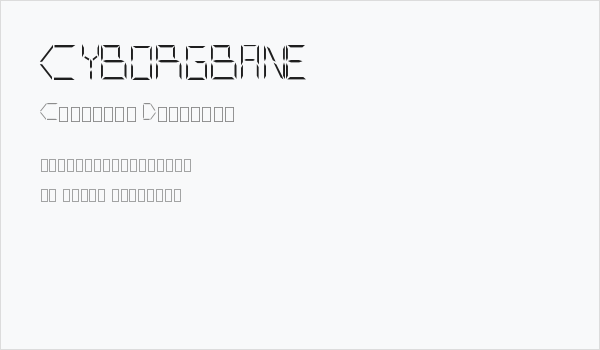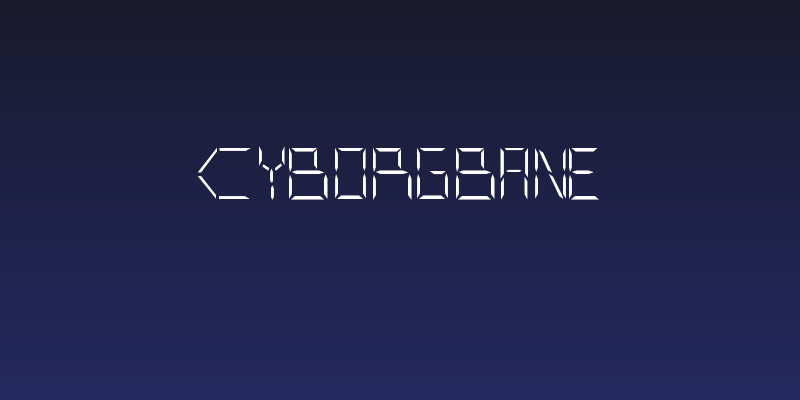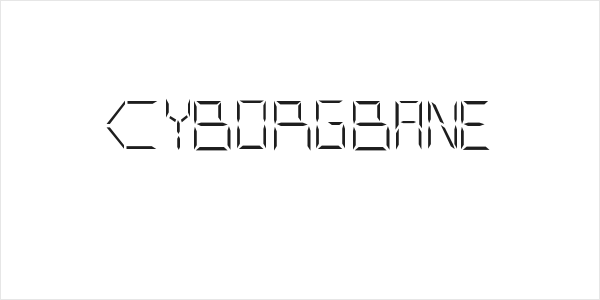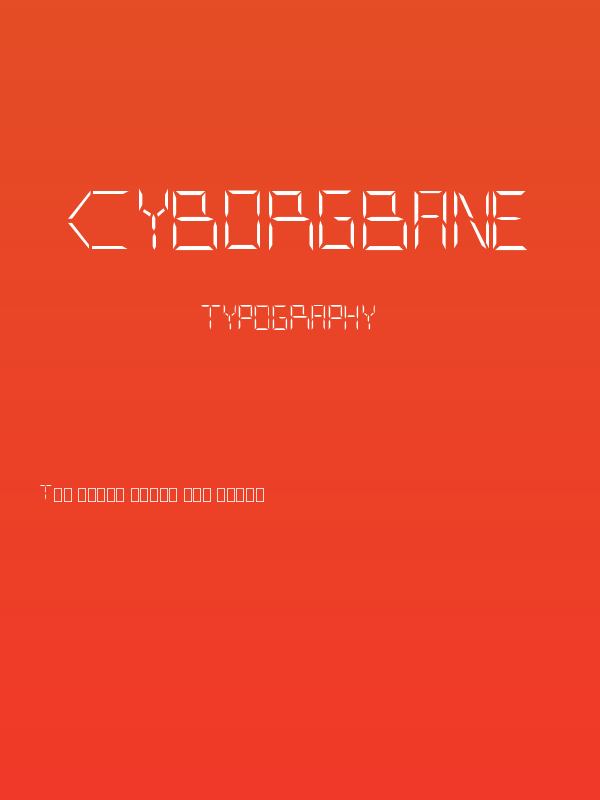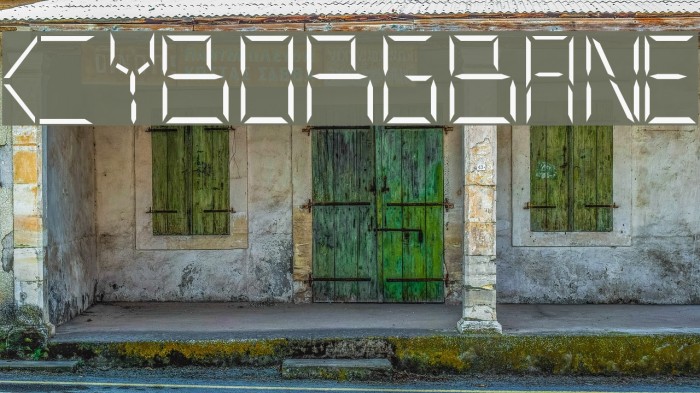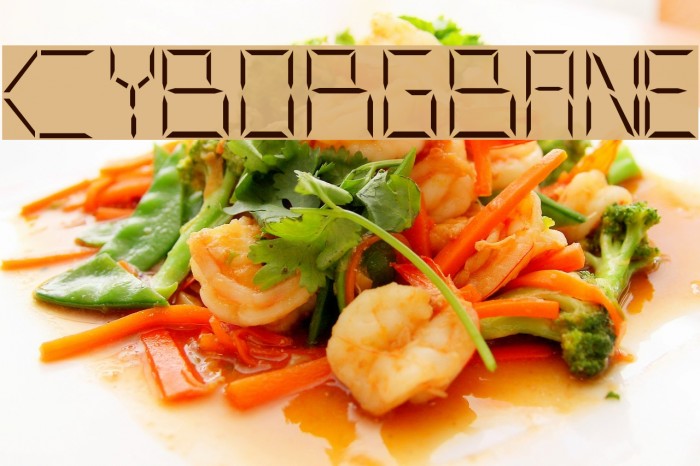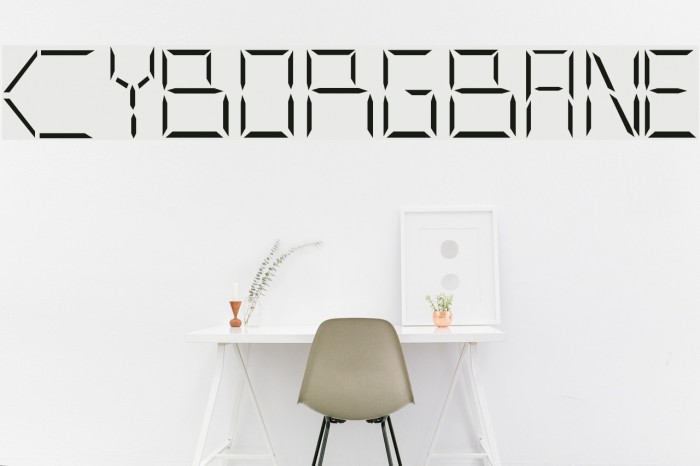
CYBORGBANE Font
CYBORGBANE Description
This font features a futuristic, angular design reminiscent of digital or cybernetic aesthetics. Each character is constructed with sharp, geometric lines that create a sense of movement and modernity. The uppercase letters are particularly striking, with their bold, segmented appearance that suggests a high-tech or sci-fi theme. The font lacks lowercase letters and numerals, focusing instead on a strong, uppercase presentation. This design is ideal for projects that require a cutting-edge, technological feel, such as video game titles, tech company logos, or sci-fi movie posters.
| Proposed Projects | Ideal for video game titles, tech company logos, and sci-fi movie posters. |